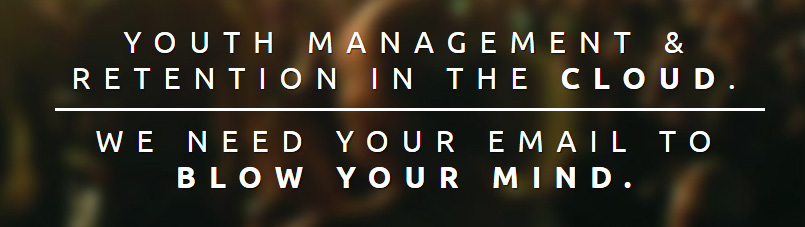
FSI, Pool, Albert-Jan/DIN Offc black
Dalton Maag /ubuntu http://www.google.com/webfonts/
Pick 2:
Close; Hecksher, Jonas/SymphonyDisplay-Caps https://playtype.com/font/symphony-display
There are “disturbances” in the counter of the /A which I’m going to attribute to the printing process.
Nothing so nice! These are attached to the /A and look like designer screw ups. There might be a version like that out there someplace!